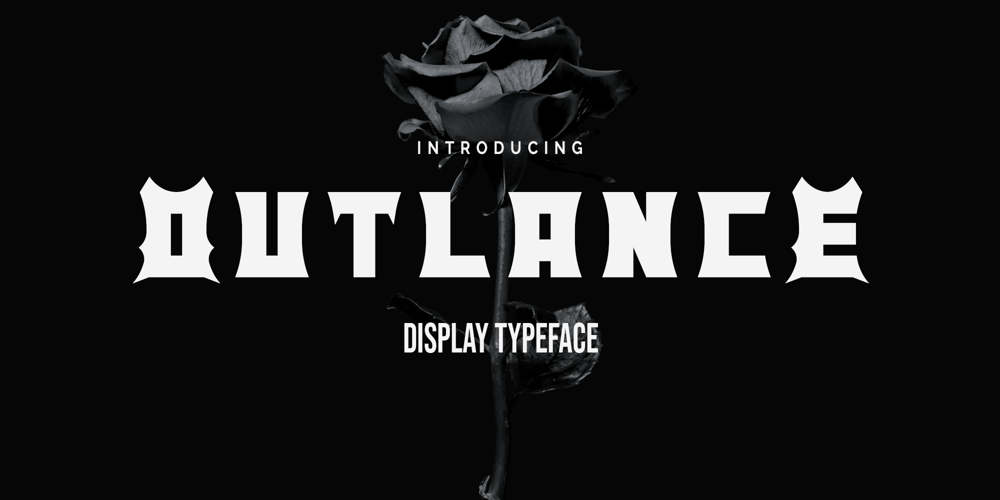
Outlance Font Family was designed by RoninDesign and published by Ronin Design. Outlance contains 1 styles and family package options. Introducing Outlance, a unique fusion of elegance and toughness that captivates with its stunning manly vibes while evoking a sense of outlaw violence, this font effortlessly balances sophistication with raw power. Its bold yet refined aesthetic commands attention, making every design stand out with a captivating allure. Whether you are aiming for a touch of class or a hint of rebellion, this font delivers versatility and impact, ensuring your message leave a lasting impression. Elevate your designs with this font that deftly combines elegance and hardcore edge, setting the stage for unforgettable visuals.–Uppercase